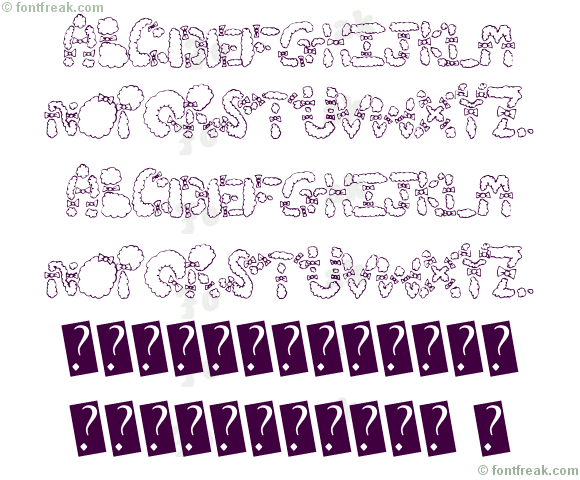
HairBows
The HairBows font by Xerographer Fonts is a whimsical and decorative typeface that embodies a playful spirit. Released in 2012, this font falls within the decorative category, making it a unique choice for projects that require a fun, lighthearted touch. The HairBows font features a charming design characterized by soft, rounded shapes and a playful layout that resembles the delightful qualities of hair bows. The stroke weight is consistent throughout, offering a cohesive look, while the spacing between letters allows for clear readability, making it suitable for various applications.
This font is particularly well-suited for a range of creative projects, including wedding invitations that seek to evoke a sense of joy and celebration, children's book covers that aim to capture the imagination, birthday party invitations that call for a festive flair, and even branding for boutique shops that wish to convey a cute and inviting atmosphere. Additionally, content creators looking to enhance their digital graphics with a touch of whimsy will find this font to be an excellent fit.
The target audience for the HairBows font includes graphic designers, small business owners, and content creators who are aiming to add a playful element to their projects. The font's unique aesthetic can help convey a brand's personality or the theme of an event, making it a versatile tool in the designer's toolkit.
What truly sets the HairBows font apart is its delightful approach to typography. Its ability to blend fun with functionality ensures that it captures attention while remaining legible, making it an ideal choice for those in search of a charming typeface. For anyone interested in this playful design, the HairBows font free download offers an accessible opportunity to incorporate this delightful typeface into their creative endeavors.